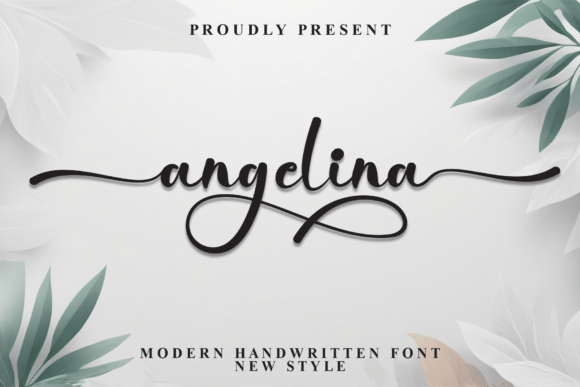
The Perfect Script: Unlocking the Magic of Angelina Font
Have you ever stared at a blank page, searching for the perfect words to express your creativity? That’s exactly where I was when I stumbled upon the enchanting Angelina Font. Its elegant, handwritten script style is the perfect blend of sophistication and playfulness, making it an ideal choice for designers seeking to add a personal touch to their projects.
With its flowing curves and natural rhythm, the Angelina Font brings warmth and creativity to any project. Whether you’re designing an invitation, branding, or social media content, this versatile font is sure to captivate your audience. As a designer, you’ll appreciate the value of Angelina Font in elevating your designs and making them truly stand out.
Angelina Font Key Features
- Unique Characteristics: Angelina Font features a modern, elegant design with a unique blend of geometric and script elements.
Designer Review: Angelina Font
First of all, let’s talk about the good stuff ✨. I love the elegant, sophisticated feel of Angelina Font. The delicate curves and refined lines evoke a sense of luxury and refinement. The font is particularly well-suited for high-end branding, wedding invitations, or any other design project that requires a touch of class.
- ✨ Beautiful, refined lines and curves
- ✨ Elegant and sophisticated feel
- ✨ Suitable for high-end branding and luxury designs
However, there are a few limitations to consider ⚠️. The font is relatively limited in terms of font weights and styles, which may make it less versatile for certain design projects. Additionally, the font may not be as readable at smaller sizes, which could be a concern for designs that require a lot of text.
- ⚠️ Limited font weights and styles
- ⚠️ May not be as readable at smaller sizes
Overall, I think Angelina Font is a beautiful and elegant choice for designers who need to create high-end, luxury designs. While it may have some limitations, the font’s refined lines and sophisticated feel make it a great option for certain projects.
Angelina Font is ideal for:
- Editorials and creative writing
Remember to use Angelina Font in conjunction with other design elements to create a cohesive and visually appealing design.